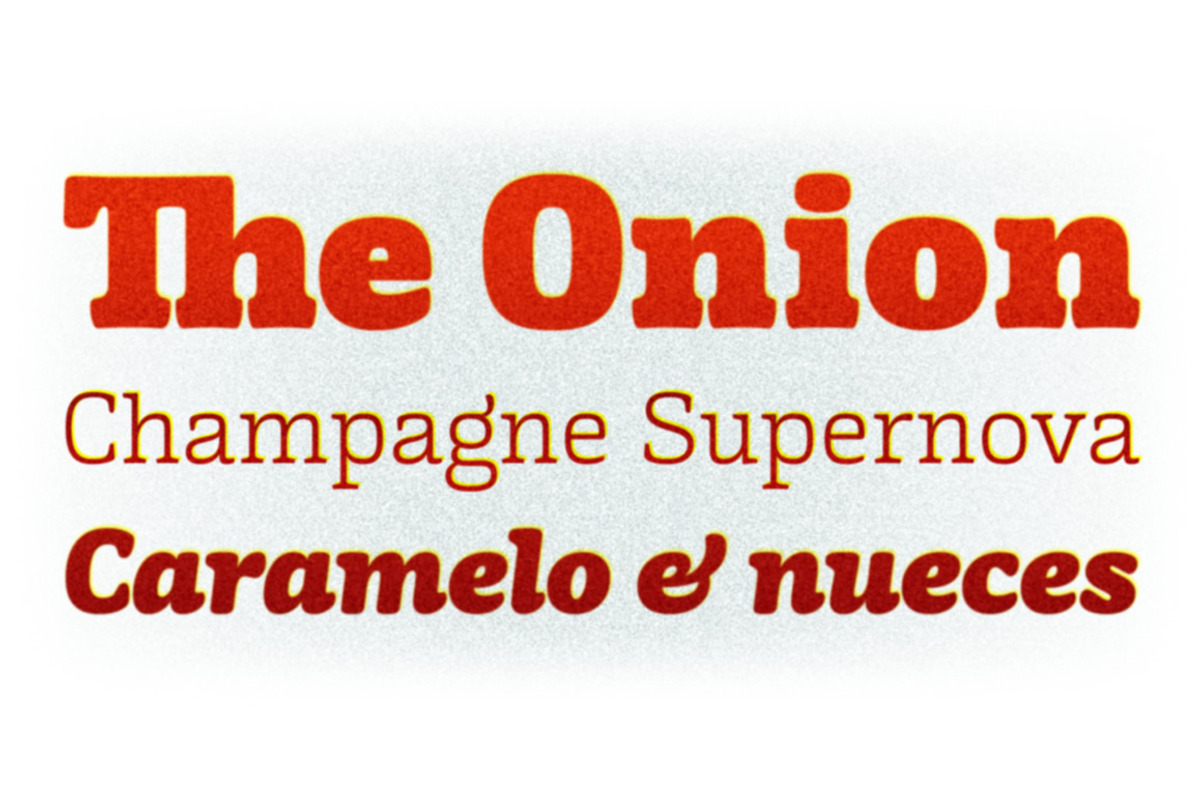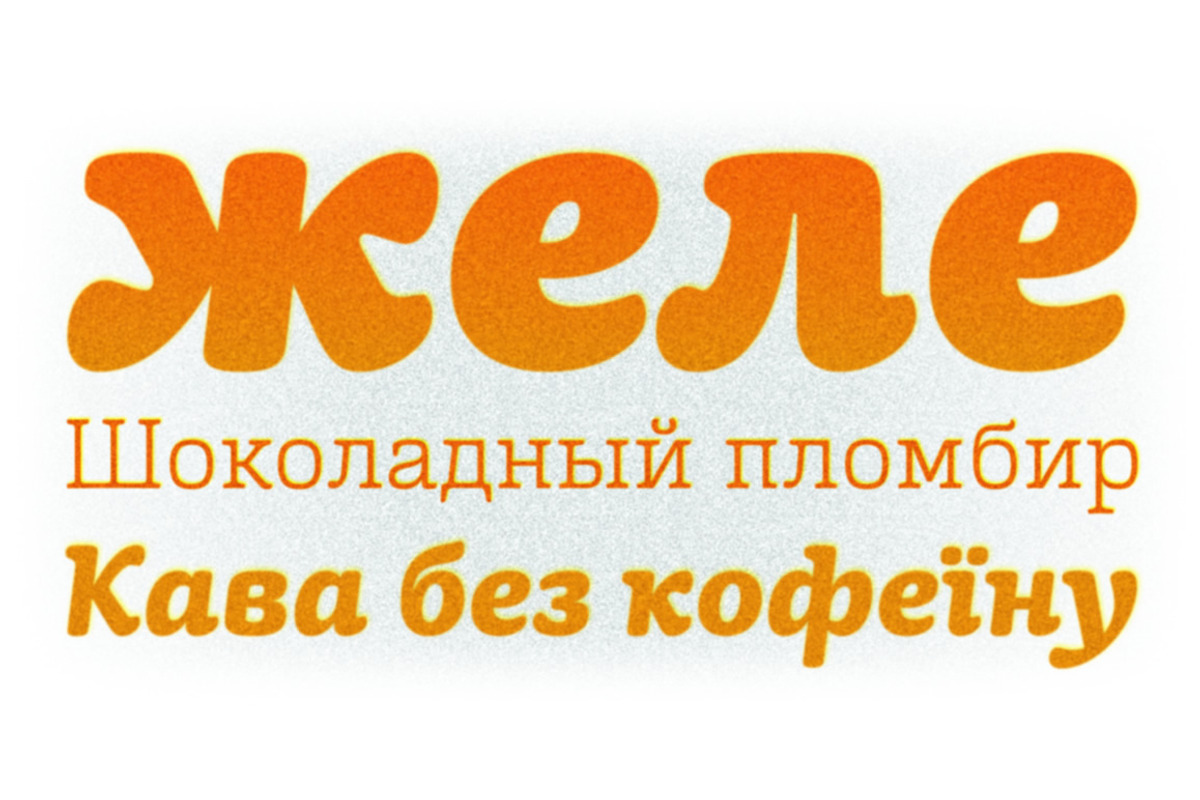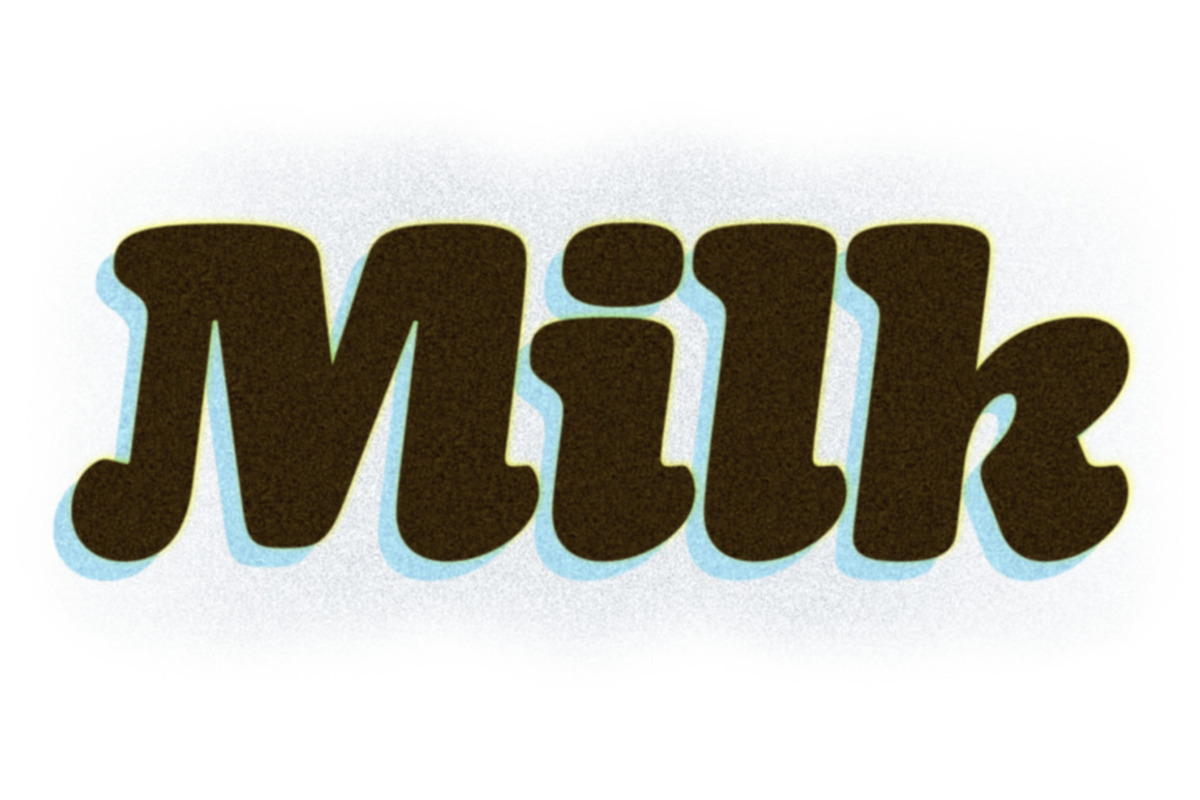
Mayonez family (14 fonts)
Mayonez family (14 fonts) by sergio is a font selected for branding, posters, packaging, typography.
- The character set includes a group of figures and currency symbols with standard height and another suited to match better with lowercase le
- A more fluid structure influenced by calligraphy is proposed for the italic variants, in this case the uppercase letters adopted a simplifie
- In an attempt to give Cyrillic lowercase romans a fresh look, symmetrical serifs inherited from the versal tendency are mostly avoided thus
- The character set includes a group of figures and currency symbols with standard height and another suited to match better with lowercase le
Why Mayonez family (14 fonts) is worth a look
Mayonez family (14 fonts) by sergio fits naturally into Branding, posters, packaging, typography.